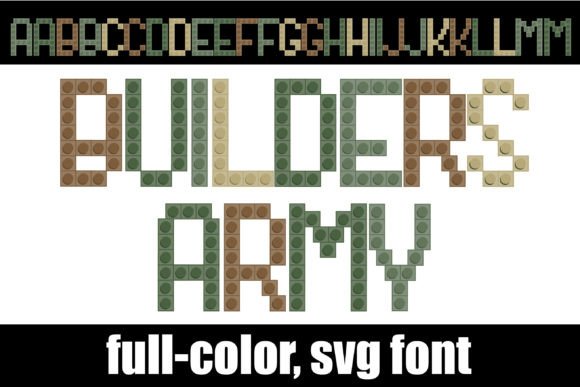
The Ultimate Guide to Builders Army Font: Unleashing Creativity with Full-Color Typography
Have you ever been in the middle of a design project, and suddenly, you just can’t find the right font to bring your vision to life? I recall a particularly frustrating experience when a client asked for a logo that was both playful and professional. I scoured the internet for hours, but nothing seemed quite right. That’s when I stumbled upon the Builders Army Font, and it completely transformed my design process.
This full-color font features building blocks in a military color palette, giving it a unique and edgy vibe. What I love about it is the alt version of each letter in a different color that you can access through your system character map. It’s like having two fonts in one! The OpenType full-color (SVG) font can be installed like any normal .otf font, making it easy to use across various platforms.
• ✨ Unique and playful design with building blocks in a military color palette
• 🎨 Access to alt versions of each letter in different colors through the system character map
The Designer Inspiration Behind Builders Army Font
Builders Army Font was inspired by the world of construction and architecture. The designer wanted to create a font that captured the playfulness and creativity of building blocks, while also incorporating a military color palette for a bold and edgy look.